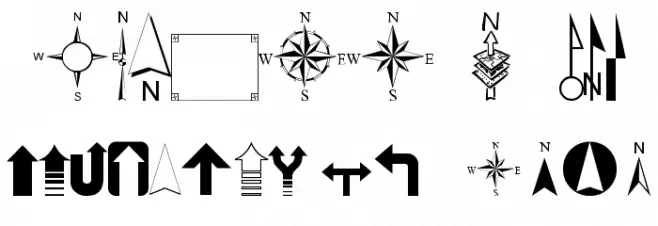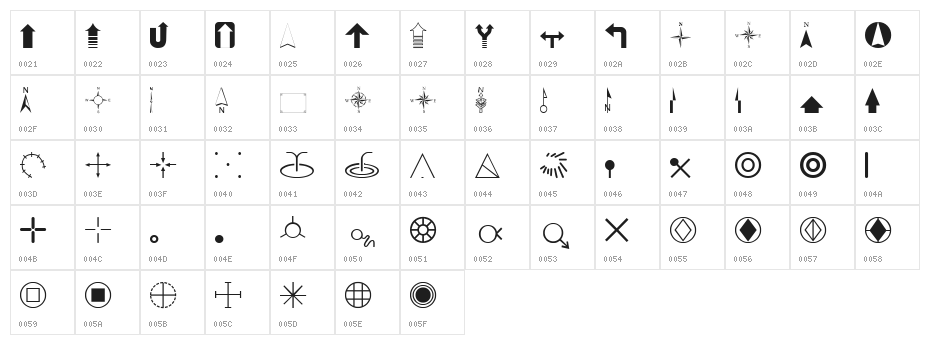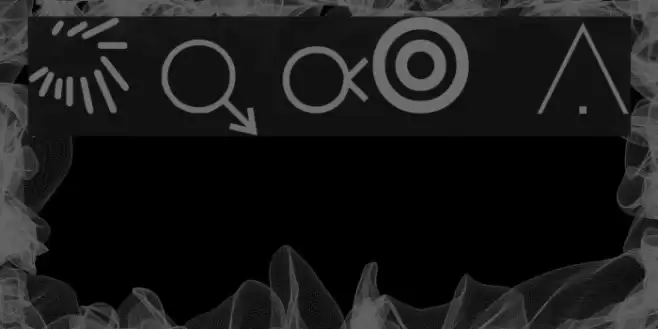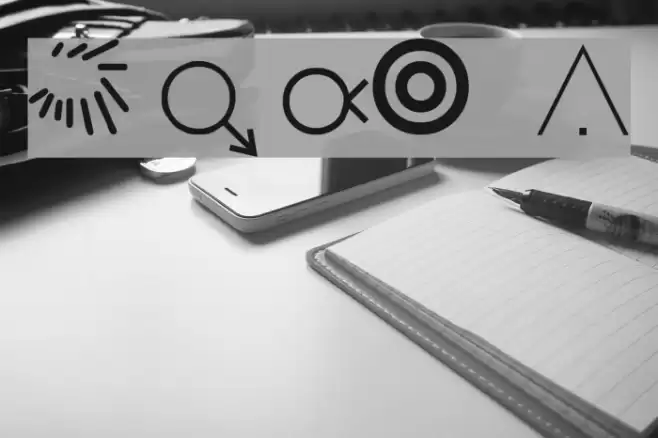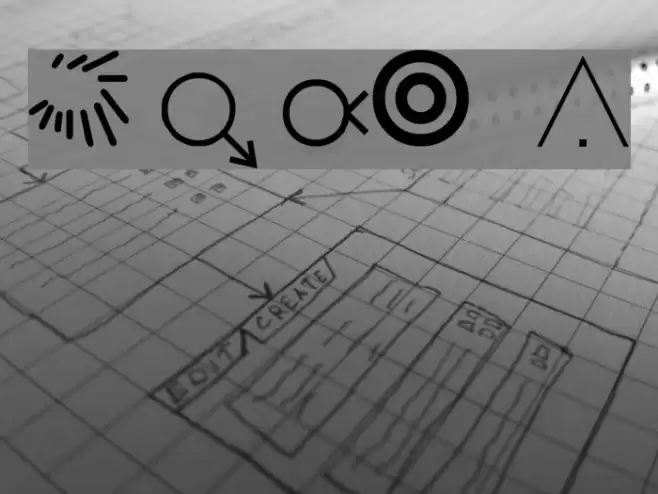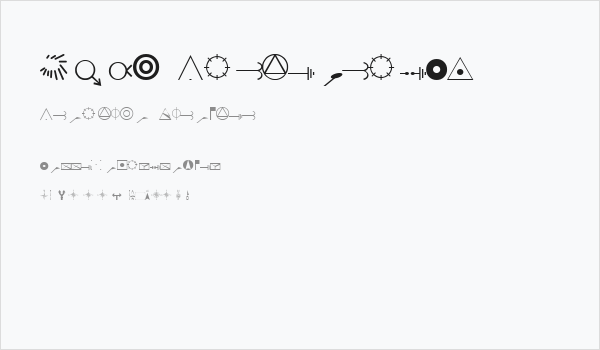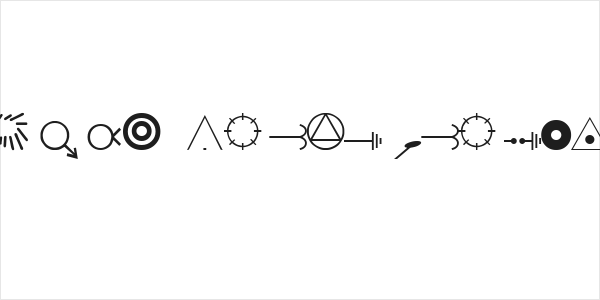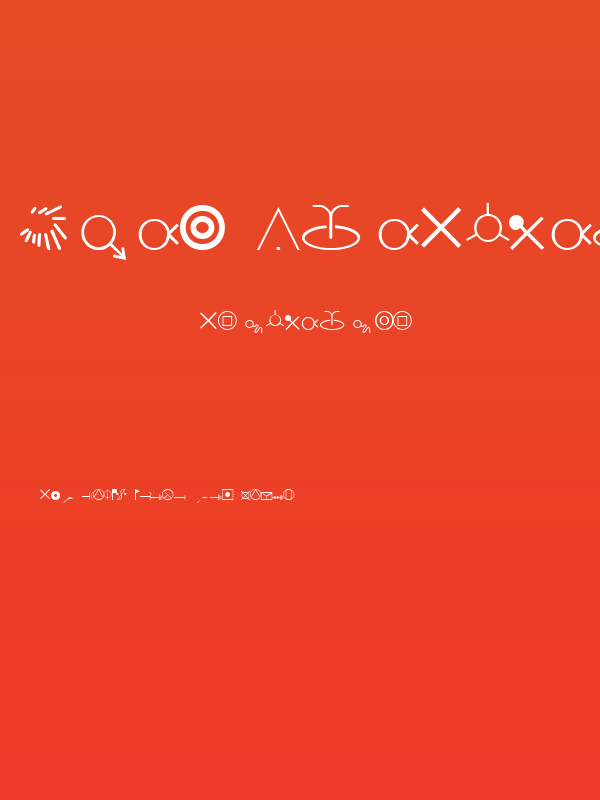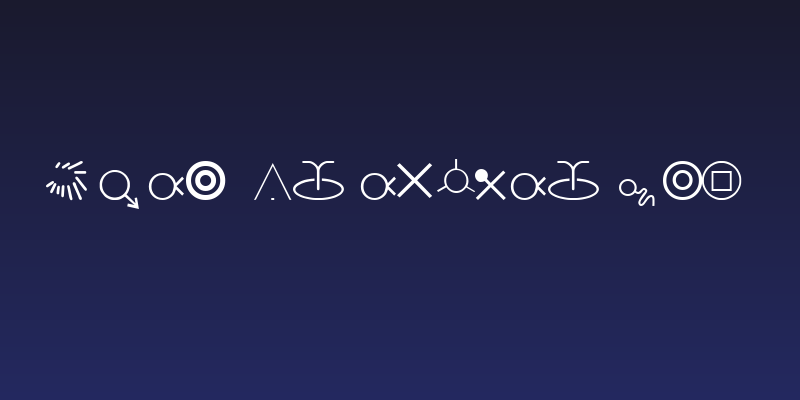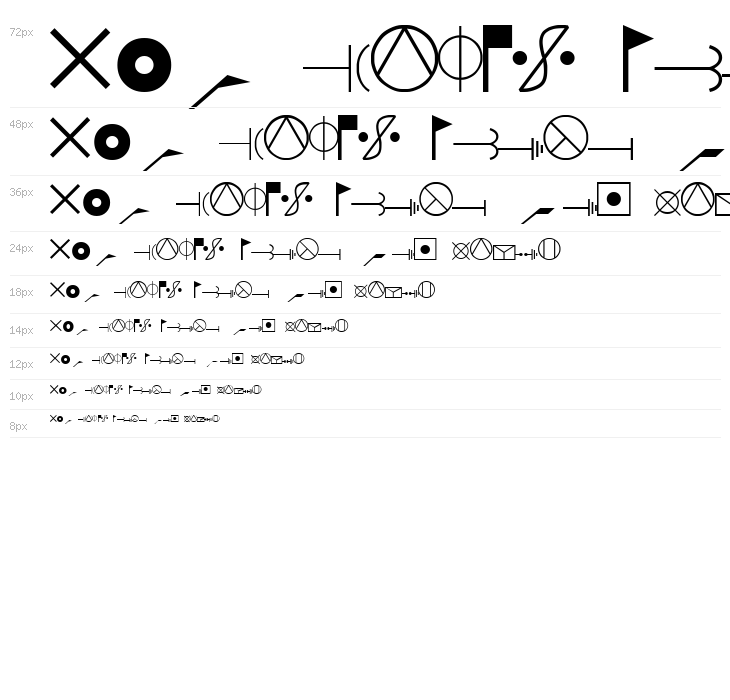
ESRI Cartography Font
ESRI Cartography Description
This set of symbols is designed for cartographic purposes, featuring a variety of geometric shapes and directional indicators. The symbols include circles, triangles, arrows, and compass roses, each crafted with precision to convey specific map-related information. The design is clean and functional, with a focus on clarity and usability in mapping contexts. The symbols are bold and easily distinguishable, making them suitable for use in both digital and print maps. Their uniform style ensures consistency across different map elements, enhancing the overall readability and aesthetic of cartographic projects.
| Use Case | Maps, Navigation, GIS |
| Proposed Projects | Ideal for creating maps, navigation systems, and geographic information systems (GIS) applications. |